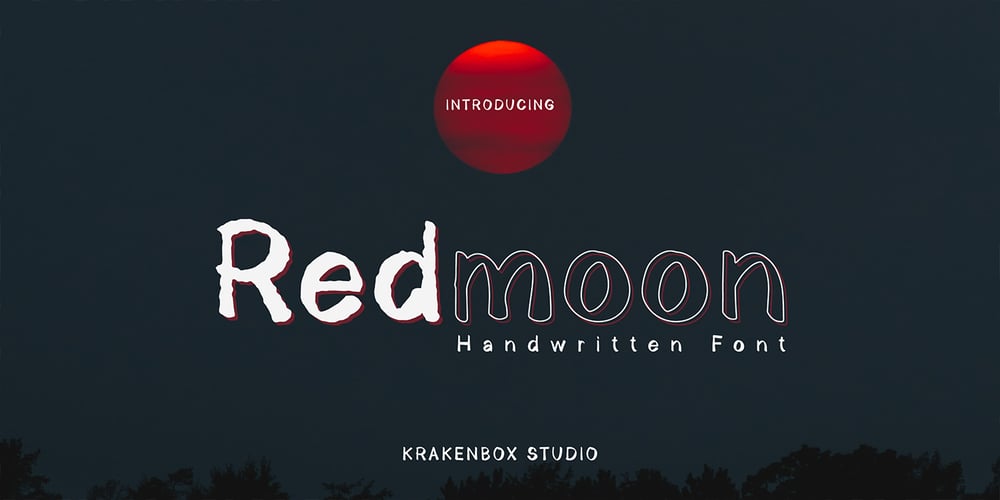
Redmoon
Redmoon font
Redmoon Font Family was designed by Yahdi Kumala and published by Krakenbox Studio. Redmoon contains 3 styles and family package options. Redmoon is a cute and playful handwritten font. Use this font to add that special cool touch to any design idea you can think of!